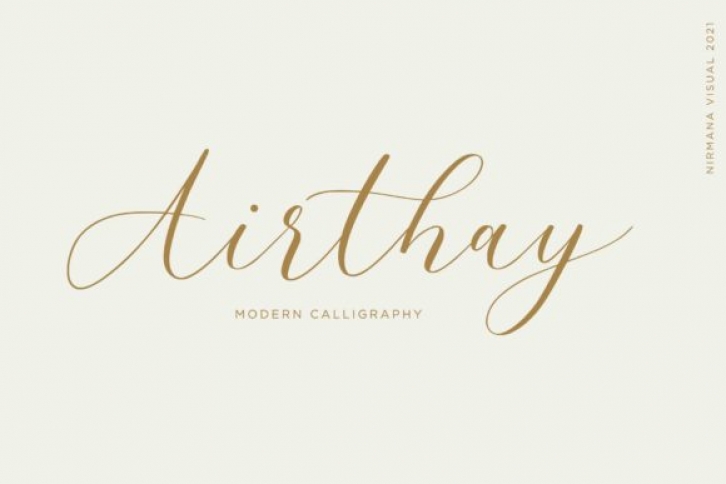
Airthay is an incredibly beautiful script font. It has a classy, elegant and modern look that can be used for logos, branding, invitations, stationery, wedding designs, social media posts, and much more!